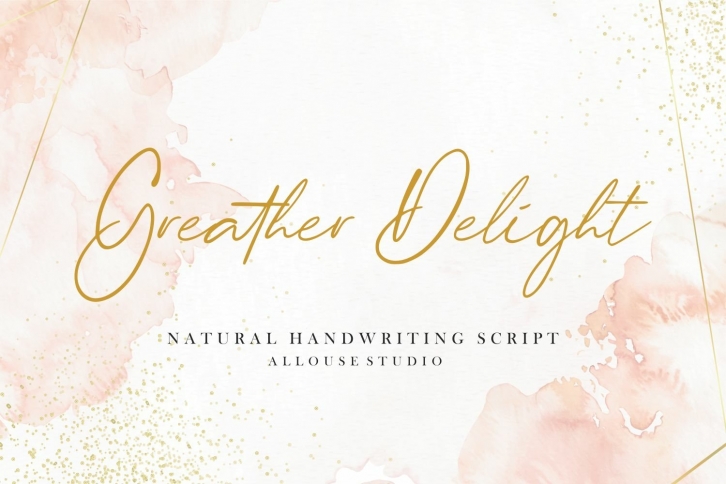
Greater Delight is a great font that was designed by Allouse Studio. Imagine the amount of combinations you can create using this font! The archive is 21.18 MB and it was released on January 16, 2021. Greater Delight looks beautiful on wedding invitations, greeting cards, logos, posters, labels, t-shirt designs, logos, business cards and is perfect for use in ink or watercolor works, fashion, magazines, packaging and food menus, children's books and more!